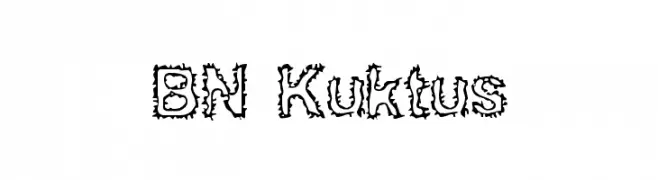
A playful font with characters enclosed in flower-shaped outlines, perfect for creative projects.
A playful font with characters encased in pumpkin outlines, perfect for festive themes.
A spooky, dripping font perfect for Halloween-themed designs.
A bold, playful font with a ghostly outline, perfect for spooky-themed designs.
A bold, textured font with a gritty, distressed style ideal for spooky themes.
A playful font with characters designed as stylized faces, perfect for creative and humorous projects.
A decorative font with characters enclosed in heart shapes, perfect for romantic themes.
A decorative font made of heart shapes, perfect for romantic themes.
A dynamic, edgy font with sharp angles and high contrast, ideal for bold statements.
A bold, playful font with a 3D outlined effect, perfect for lively designs.
A playful, handwritten font with smooth, rounded edges and a casual style.
A bold, playful font with rounded, bubble-like characters ideal for whimsical designs.
A bold, staggered font with a spooky, playful vibe, perfect for Halloween themes.
A bold, outlined font with a three-dimensional effect, ideal for dramatic headlines.
A tall, distressed font with jagged edges, perfect for horror themes.
A bold, dripping font perfect for horror themes.
A playful, spooky font with a dripping, gooey texture perfect for Halloween themes.
A horror-themed, dripping font perfect for spooky designs.
A dripping, eerie font perfect for horror themes.
A bold, shadowed font with a distressed, eerie style, perfect for horror themes.
A bold, dripping font ideal for horror or thriller themes.
A condensed, eerie font with irregular, jagged letterforms perfect for horror themes.
A bold, dripping font perfect for spooky and dramatic designs.
A bold, dripping font perfect for spooky Halloween designs.